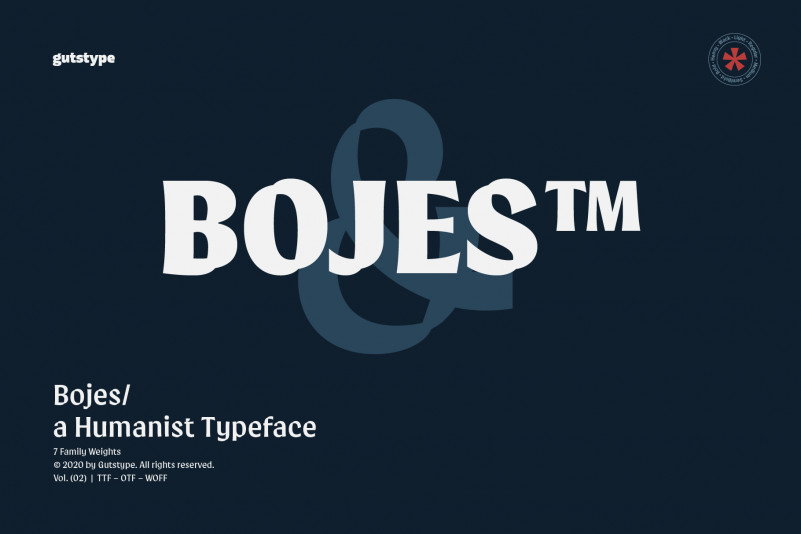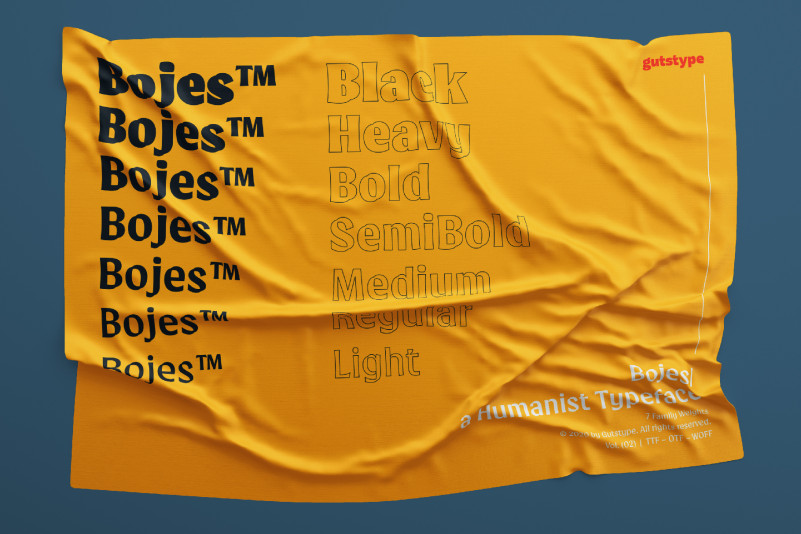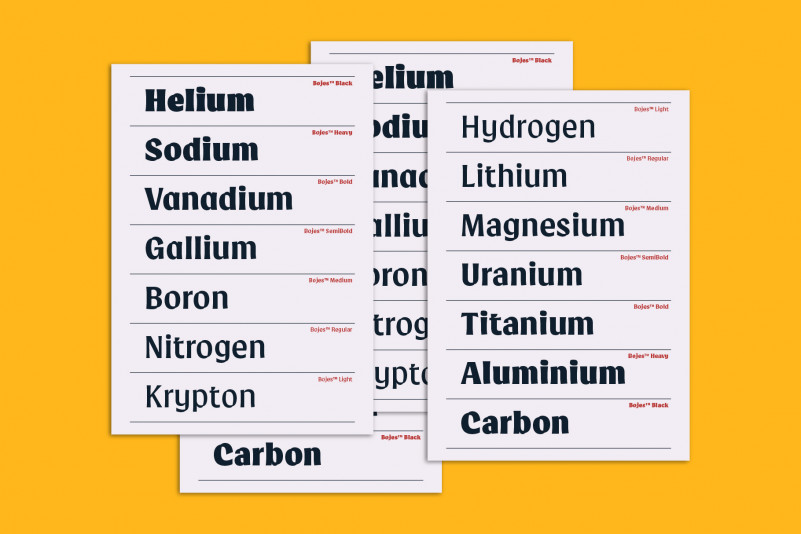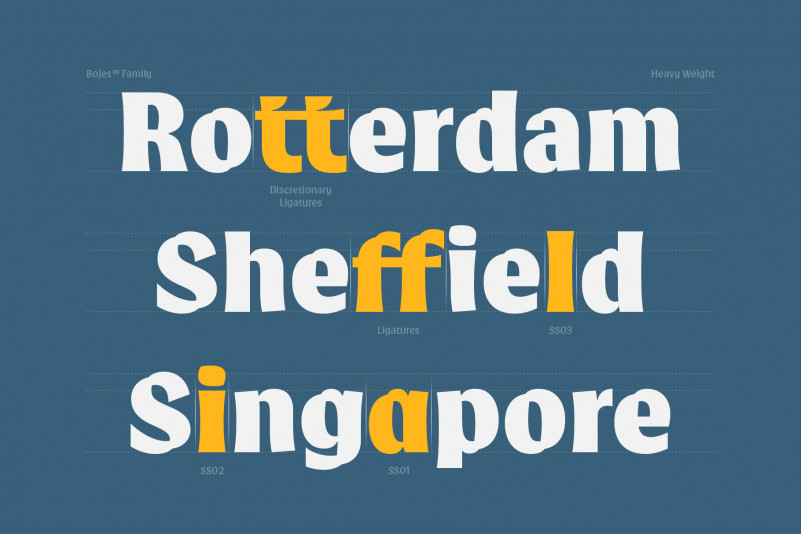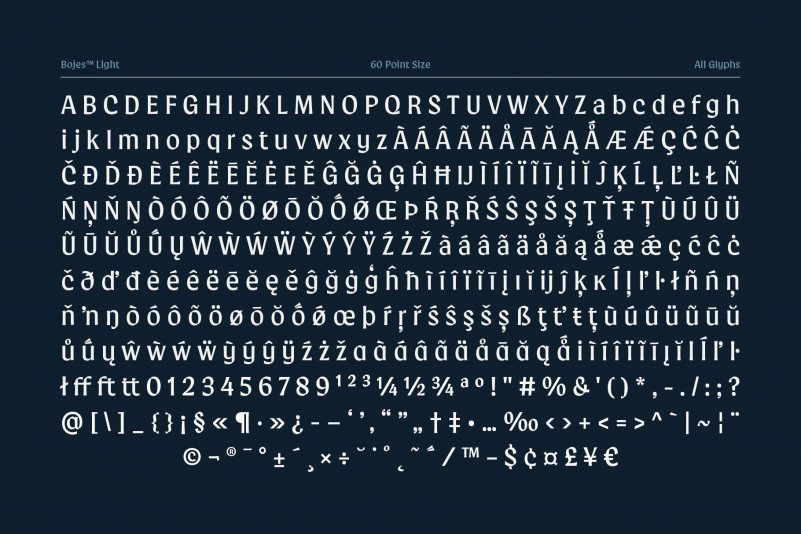
Bojes™ Typeface
Bojes™ Typeface has a humanist style with a clean and modern feel. available in 7 weights, ranging from light, regular, medium, semi bold, bold, heavy, and black. Bojes™ Typeface are suitable for design magazines, posters, branding and more. You can integrate with any design according to the project you are working on.